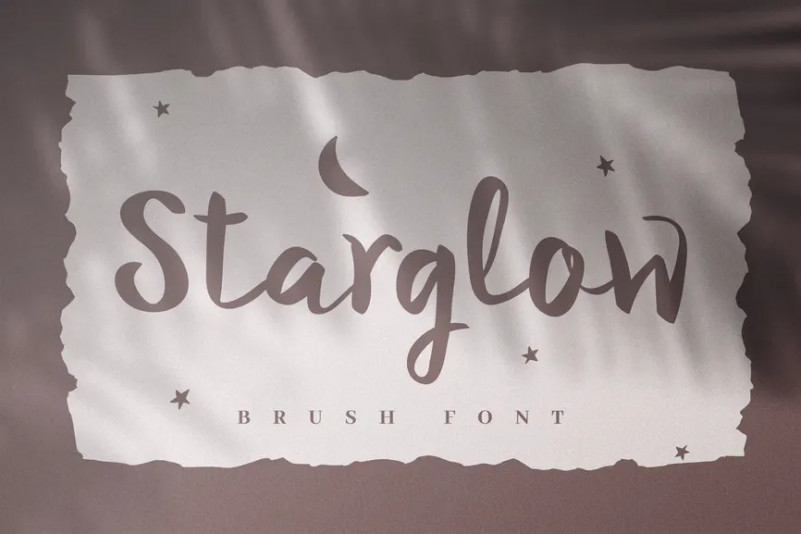
Starglow Font
Introducing Starglow – A Bold and Playful Script font with a handmade brush look.
This font is designed for logos, headlines, quotes, invitations, cards and so much more. It has a slight rustic and authentic handmade vibe to it’s look.